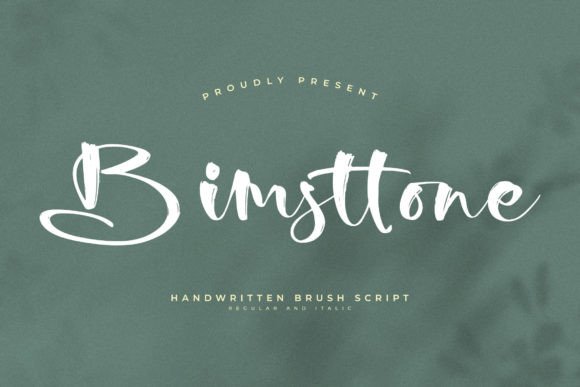
**Unleash Your Creative Flair with Bimsttone Script: The Enchanting Handwritten Brush Script Font**
In a world teeming with digital monotony, Bimsttone Font emerges as a breath of fresh air, inviting you to embrace the magic of handwritten artistry. Its elegant strokes, reminiscent of a skilled calligrapher's touch, evoke a sense of timeless elegance and charm. Whether you're a seasoned designer or just starting your creative journey, Bimsttone Script is the perfect companion to add a touch of sophistication and uniqueness to your projects.
**Beyond Aesthetics: The Versatility of Bimsttone Script**
Bimsttone Font is not just a pretty face; it's a versatile powerhouse capable of transforming your creative visions into reality. Its meticulously crafted characters dance effortlessly across a wide range of projects, from logos and branding to homeware designs and product packaging. Whether you're aiming for a classic, timeless look or a modern, edgy vibe, Bimsttone Script adapts seamlessly, adding a touch of sophistication and charm to every creation.
**Capture the Essence of Quotes with Bimsttone Script**
Quotes have the power to transport us to different realms, to inspire, motivate, and ignite our imaginations. With Bimsttone Script, you can elevate your quotes to new heights, giving them a visual representation that matches their profound impact. Its flowing lines and intricate details capture the essence of each word, creating a visually captivating experience that draws readers in and leaves a lasting impression.
**A Myriad of Creative Possibilities Await**
Bimsttone Script's versatility knows no bounds. It flourishes on mugs, posters, and shopping bags, adding a touch of elegance to everyday objects. T-shirts and book covers adorned with Bimsttone Script exude a sense of uniqueness and style. Name cards, invitation cards, and greeting cards crafted with Bimsttone Script convey a personal touch that makes every occasion extra special. From labels and photography to watermarks and special events, Bimsttone Script effortlessly enhances the visual appeal of your creations, leaving a lasting impression on all who encounter them.
**Add a Touch of Beauty to Your Creative Endeavors**
Bimsttone Script is more than just a font; it's an invitation to let your creativity soar. Its graceful curves and delicate flourishes add a touch of beauty to any project, making it the perfect choice for designers, artists, and anyone looking to add a touch of elegance to their work. With Bimsttone Script at your disposal, the possibilities are endless. Unleash your imagination and create something truly extraordinary.